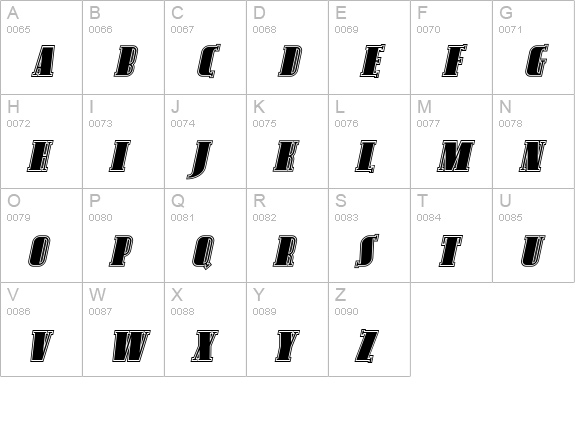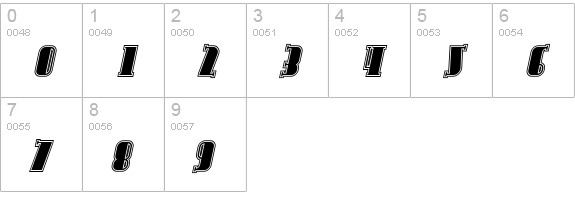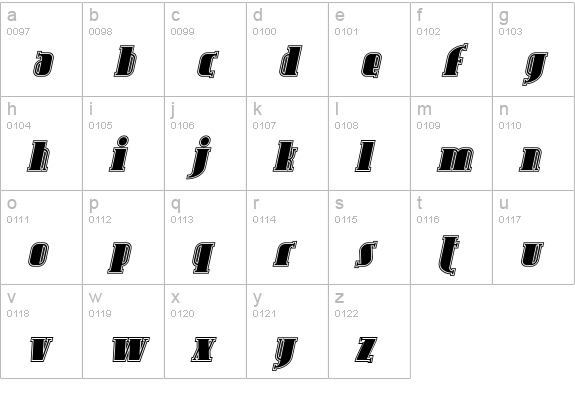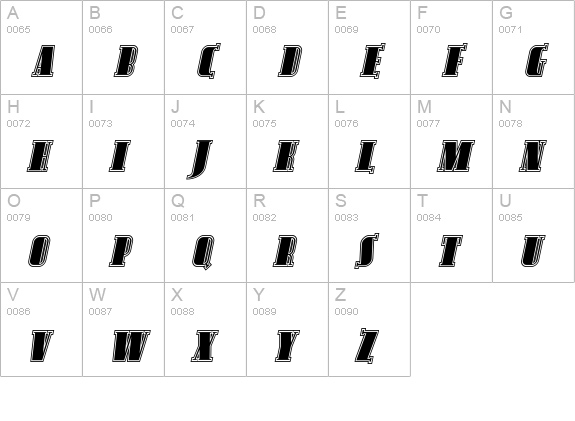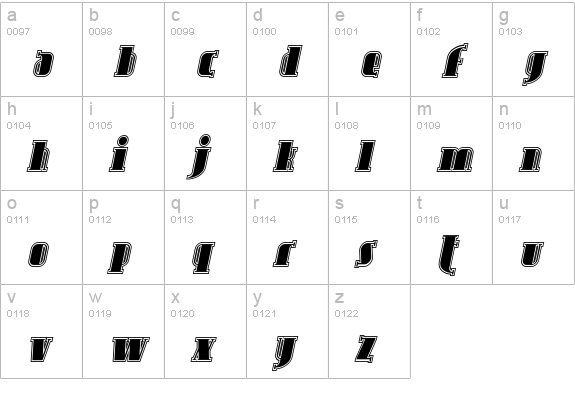
Avondale Inline Italic is a distinctive, italic variant in the Avondale typeface family \xE2\x80\x94 well suited to design and typography projects.
Avondale Inline Italic font is a stylish and modern typeface that exudes elegance and sophistication. Its sleek lines and slanted design give it a unique and eye-catching appearance, making it perfect for adding a touch of flair to any project. The italicized version of Avondale Inline adds a dynamic and energetic feel to your text, making it ideal for headlines, quotes, and other prominent text elements. What sets Avondale Inline Italic font apart is not just its striking design, but also the fact that it is available for free. You can easily download this font from FontsMarket.com and start using it in your designs right away. Whether you're working on a branding project, a poster design, or a website layout, Avondale Inline Italic font will elevate your work and help you stand out from the crowd. Don't miss out on the opportunity to enhance your designs with this beautiful and versatile font. Download Avondale Inline Italic font for free today and unleash your creativity!